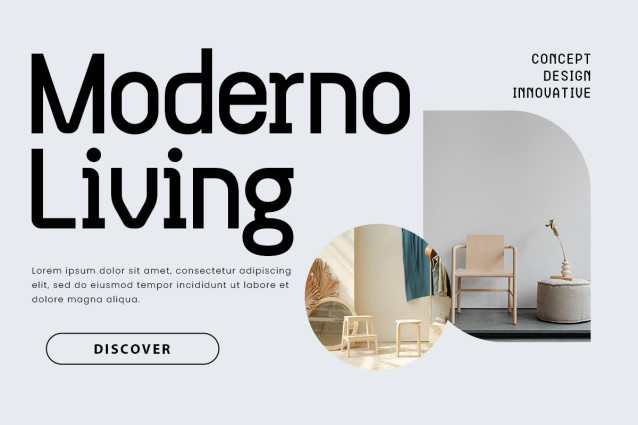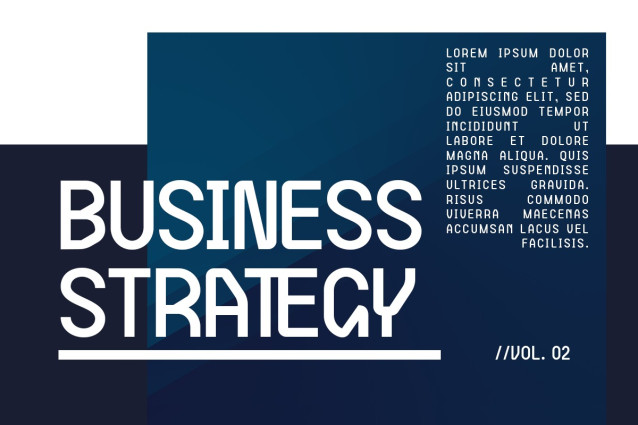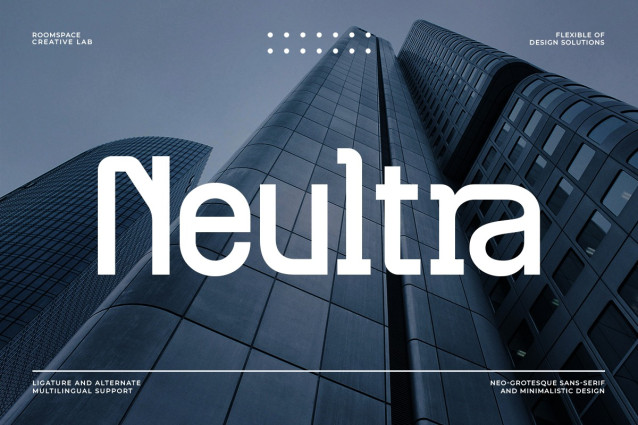
Neultra Font is a sleek and modern sans-serif typeface that blends futuristic aesthetics with a subtle touch of flexibility. Its rounded edges soften the rigid structure, creating a perfect balance between precision and approachability.
Designed for designers, businesses, and creatives who seek a clean yet unique typographic style, Neultra stands out with its minimalistic yet forward-thinking design. Whether for branding, web interfaces, editorial layouts, or high-tech projects, this font elevates your work with a contemporary and versatile touch.
Neultra adapts effortlessly to various design needs. Let your creativity flow with this future-ready typeface.